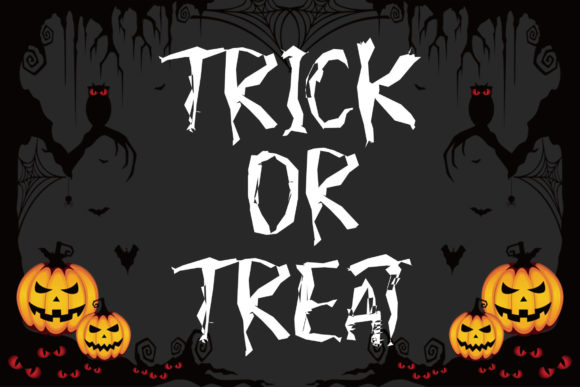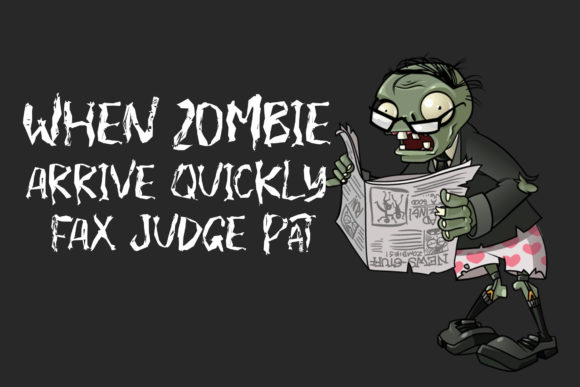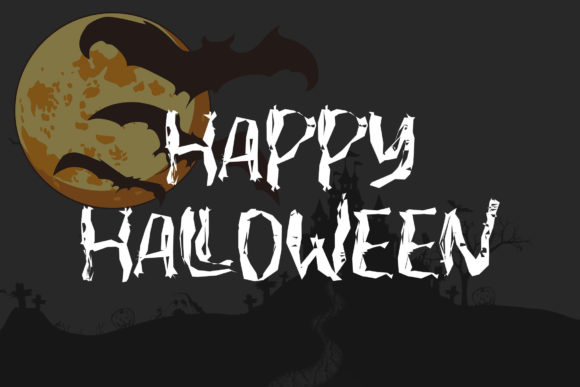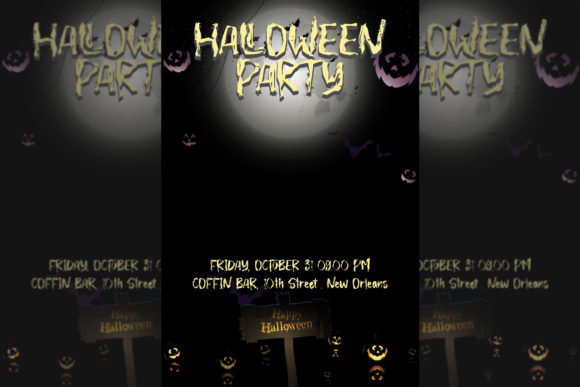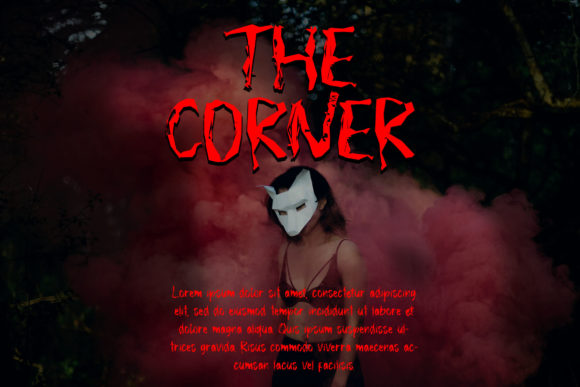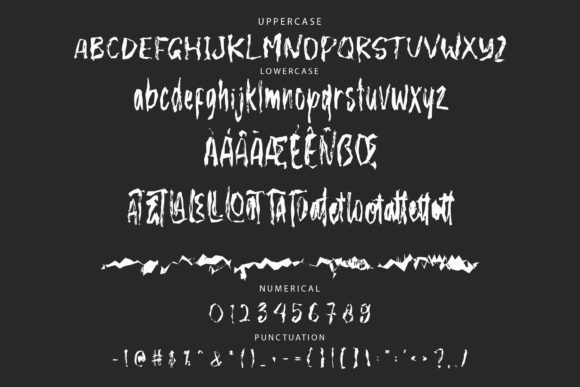
Introduction to Shadow Ramble Font
Shadow Ramble is a brushed, graffiti-styled display font that has a creepy vibe.
This font is suitable for designs such as t-shirts, sportswear, logos, advertisements, clothing, and more .
Key Features of Shadow Ramble Font
Why Choose Shadow Ramble Font?